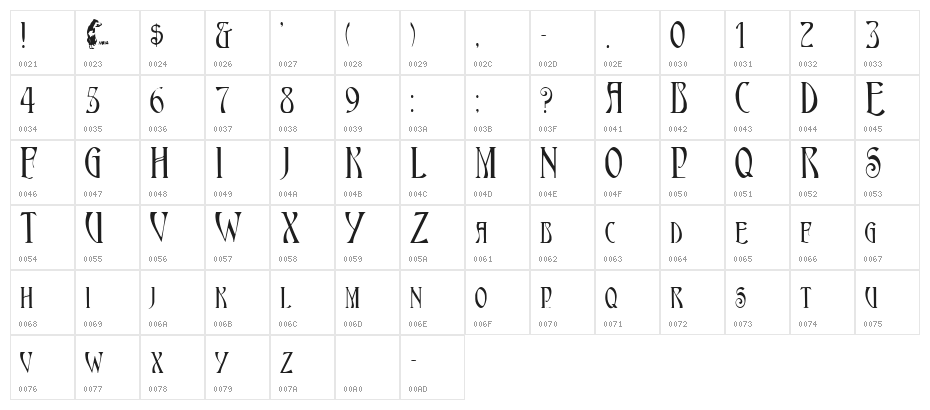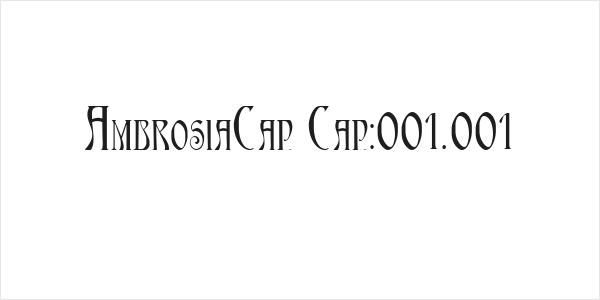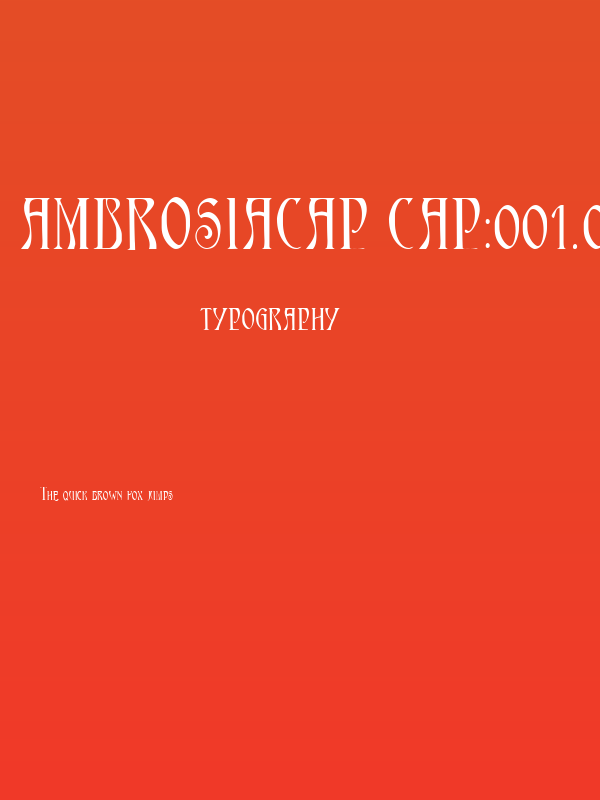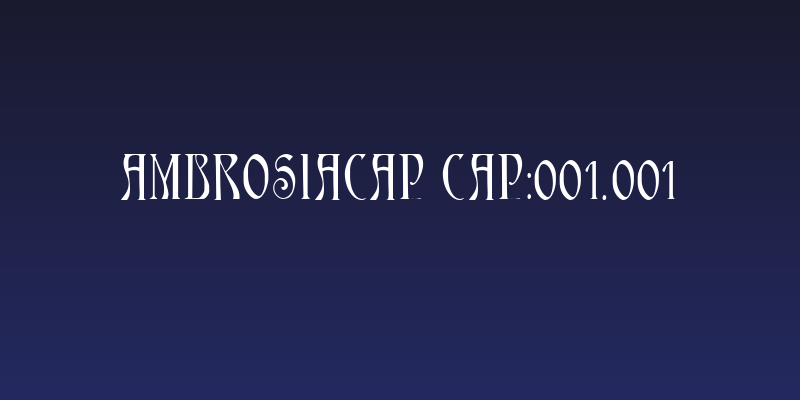
AmbrosiaCap Cap:001.001 Font
AmbrosiaCap Cap:001.001 Description
This font features a distinctive and artistic design with a strong decorative flair. The uppercase letters are characterized by elongated vertical strokes and unique, intricate details that give each character a sense of elegance and sophistication. The lowercase letters maintain this decorative style, with some characters incorporating swirls and curves that add to the overall aesthetic. The numbers are bold and maintain the same artistic style, ensuring consistency throughout. The special characters are equally ornate, making this font ideal for projects that require a touch of creativity and flair.
| Proposed Projects | Ideal for use in branding, invitations, posters, and any project requiring a decorative and elegant touch. |